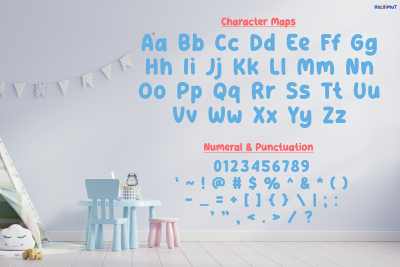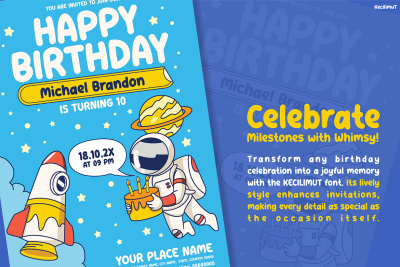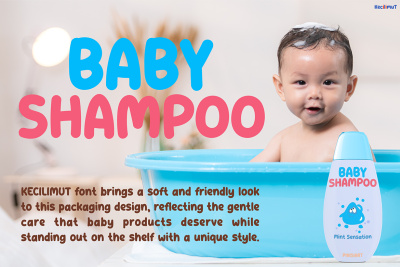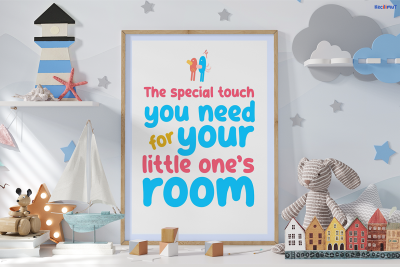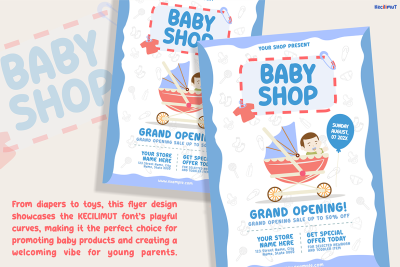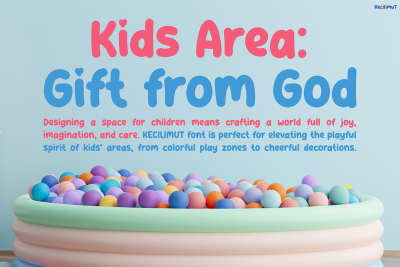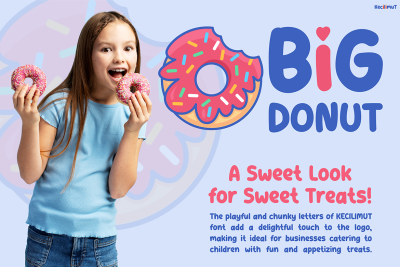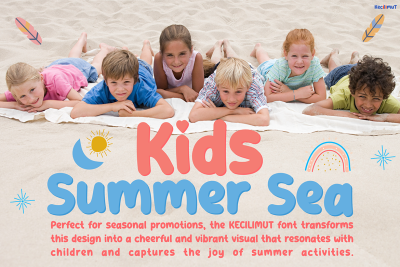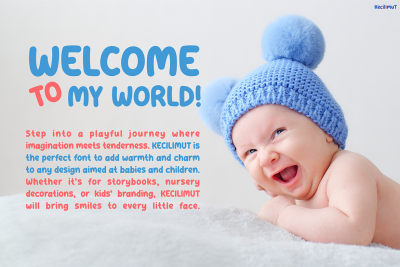
Kids Font Kecilimut is a playful and charming typeface, designed to captivate children and young audiences. With its hand-drawn style, it features soft, rounded edges and slightly uneven shapes, adding a sense of friendliness. This font is perfect for projects that need a lighthearted and whimsical touch.
Kecilimut brings joy and creativity to your designs. It is versatile, making it suitable for both print and digital platforms. The font combines readability with artistic expression, ensuring clarity while creating a playful atmosphere. Use it for headers, titles, or body text to give your projects a unique personality.
Its cheerful look makes it ideal for vibrant posters, colorful invitations, and educational materials. Kecilimut ensures your text is engaging and approachable. Whether on banners or small items like product packaging or social media graphics, this font shines.
Kids Font Kecilimut Suitable For
Kids Font Kecilimut is perfect for projects aimed at children, families, or those seeking a playful vibe. Educators and parents can use it to create fun learning materials, such as flashcards, activity sheets, or storybooks. Its friendly design keeps children engaged and makes learning enjoyable.
Businesses targeting young audiences, like toy brands or daycare centers, can use Kecilimut to add warmth to their branding. Itโs a great choice for logos, labels, and marketing materials that need a cheerful tone.
Event planners will find Kecilimut perfect for designing invitations, banners, or decorations for childrenโs parties or school events. Its lively aesthetic creates a fun and welcoming atmosphere.
Content creators in parenting or family-focused niches can also benefit. Whether for blog titles, social media posts, or videos, Kecilimutโs approachable style helps connect with audiences.
In conclusion, Kids Font Kecilimut is a versatile and vibrant typeface that sparks joy and creativity. Its whimsical design is ideal for anyone looking to create engaging, fun, and youthful projects.